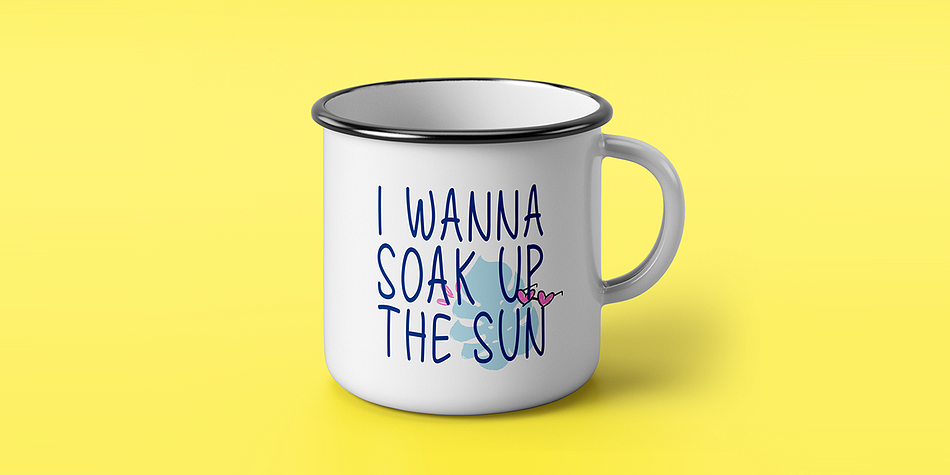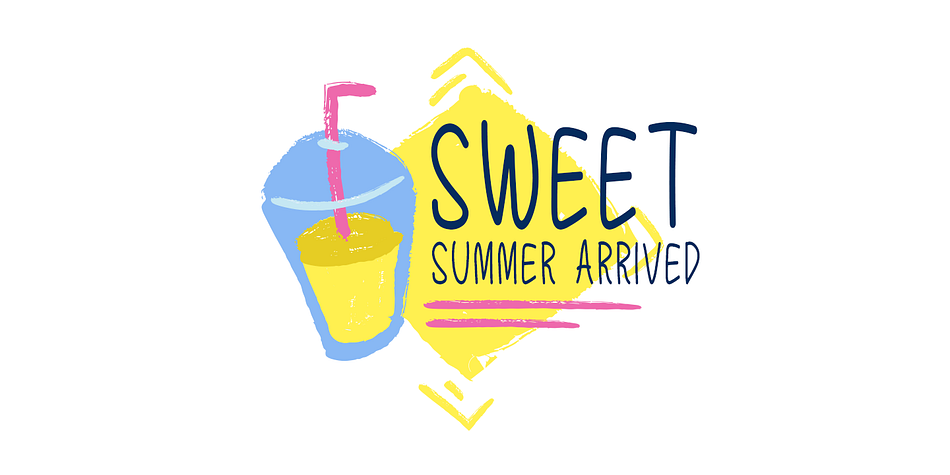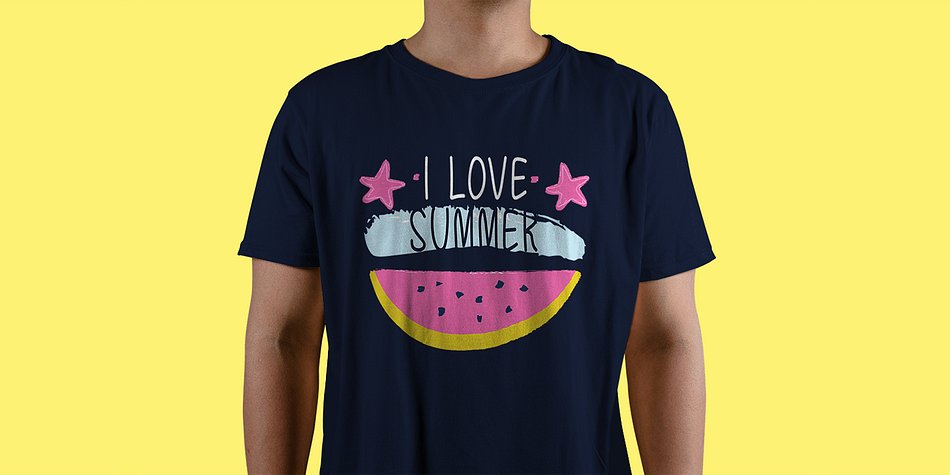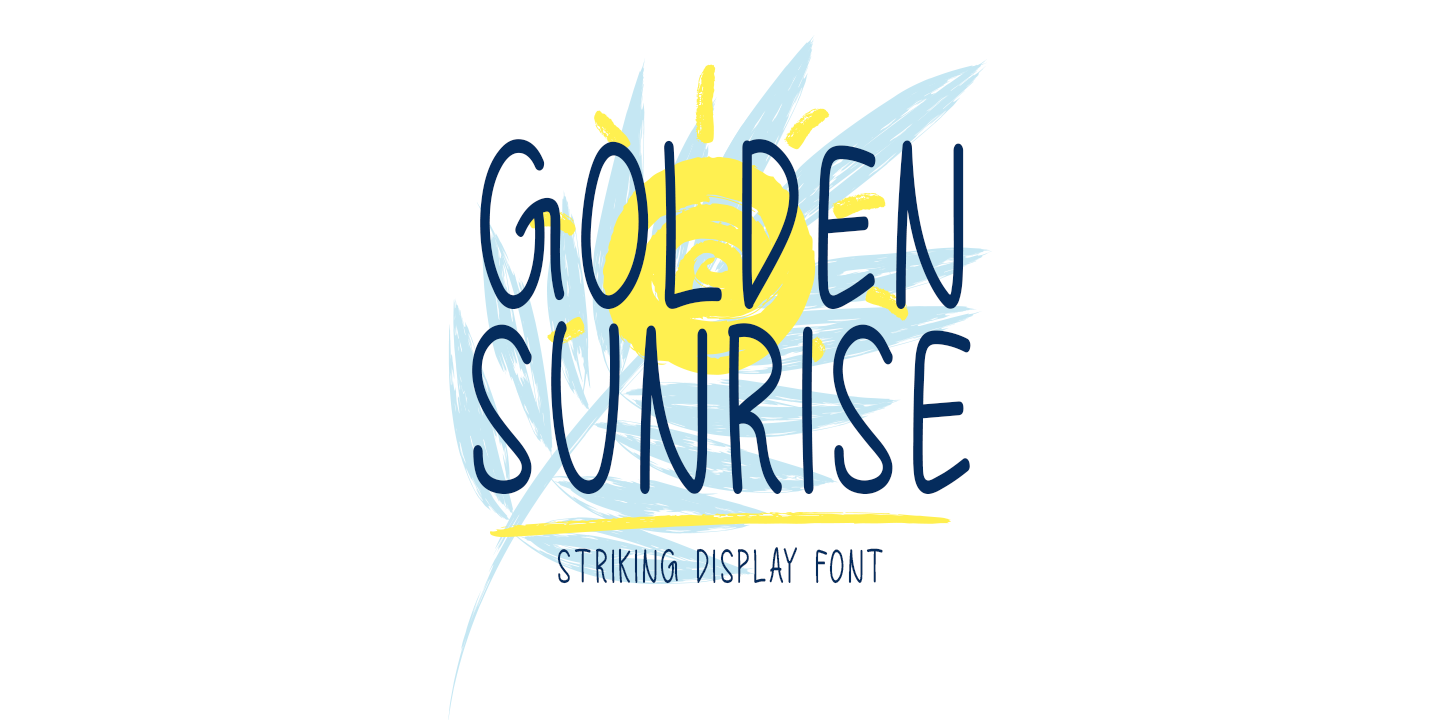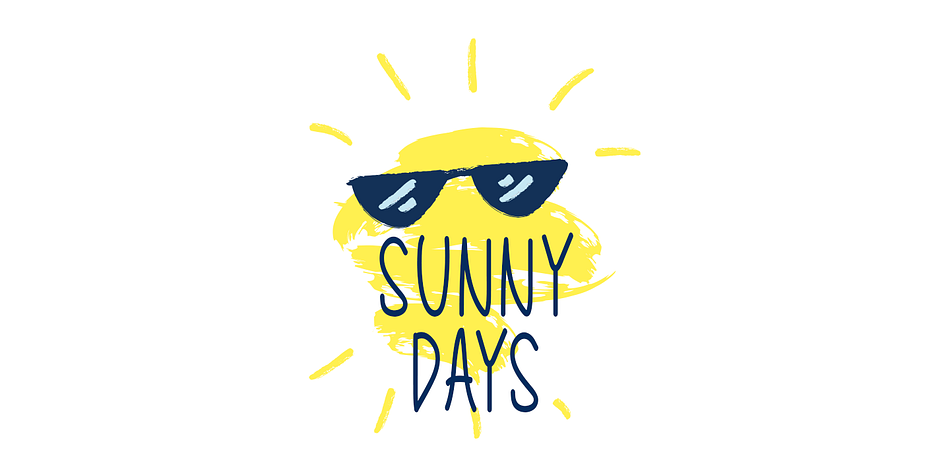
GOLDEN SUNRISE
Designed by Md. Shohail Bhuiyan, Golden Sunrise is a hand display font family published by Seemly Fonts.
Golden Sunrise is a striking display font. It can easily be matched to an incredibly large set of projects, so add it to your creative ideas and notice how it makes them stand out!